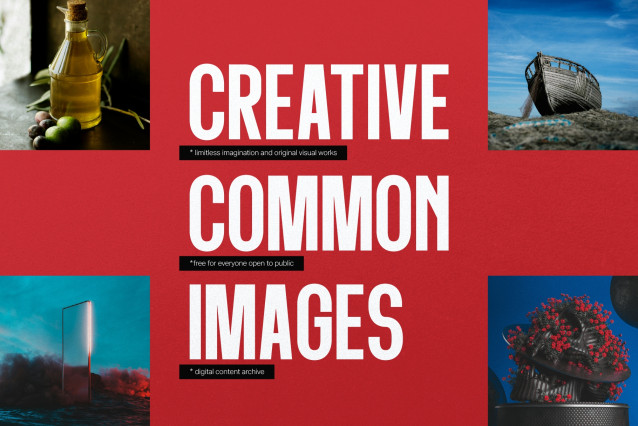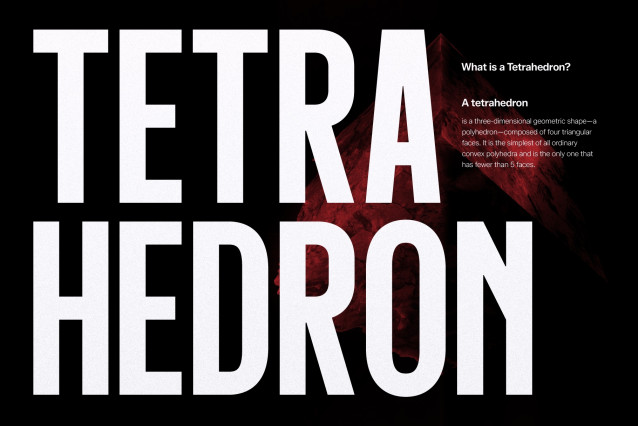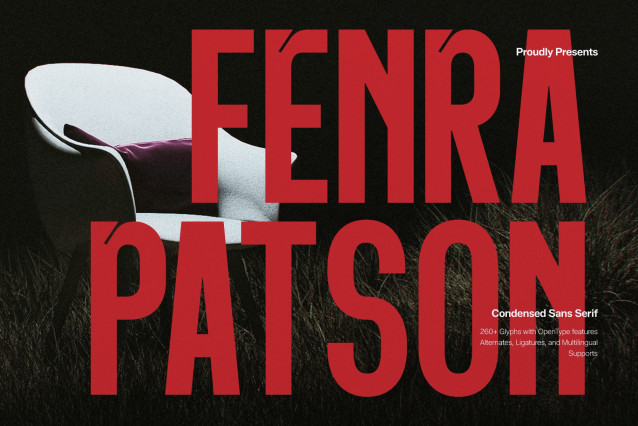
Fenra Patson Condensed Sans Serif Font
Fenra Patson Condensed Sans Serif, from Gracetypestudio, suitable for any projects such as: logos, branding projects, homeware designs, product packaging, mugs, quotes, posters, shopping bags, t-shirts, book covers, name card, invitation cards, greeting cards, label, photography, watermark, special events, and all your other lovely projects that need a sans Font taste.